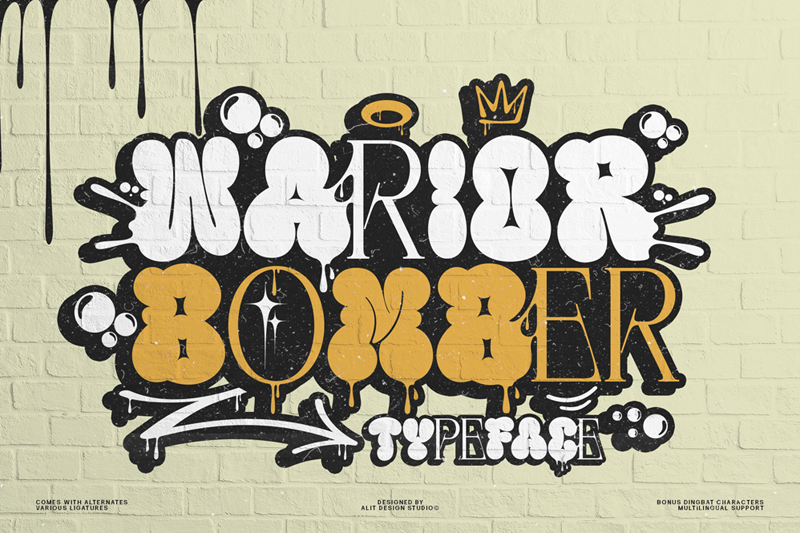
Font name: | Warior Bomber |
"Warior Bomber" is a striking and expressive font that seamlessly merges the edgy aesthetic of bubble graffiti with the sophistication of a unique serif typeface. Its design embodies a fusion of urban street art with a touch of refined elegance, making it a perfect choice for projects seeking a balance between rebellion and sophistication. This is font Demo just for personal use, Not permitted for commercial use. The donation is very appreciated. Please check here for more info about the license: https://alitdesign.net/license/ DOWNLOAD FULL VERSION AND FOR COMMERCIAL USE: https://alitdesign.net/product/warior-bomber-typeface/ Creative Market: https://creativemarket.com/alitdesign/92068220-Warior-Bomber-Typeface visit my website for full version and commercial use: https://alitdesign.net/ follow my Instagram to update my portfolio: https://www.instagram.com/alitdesign_studio/ Email : info@alitdesign.net |